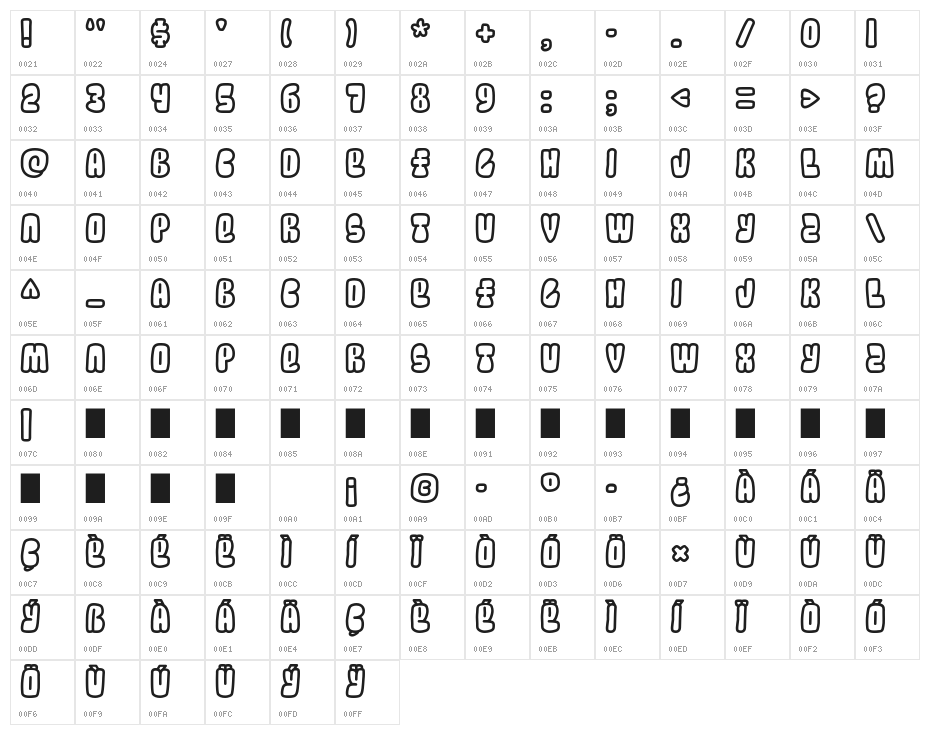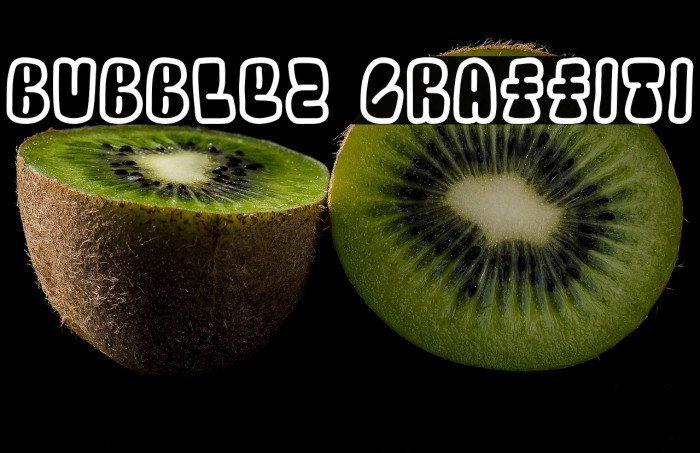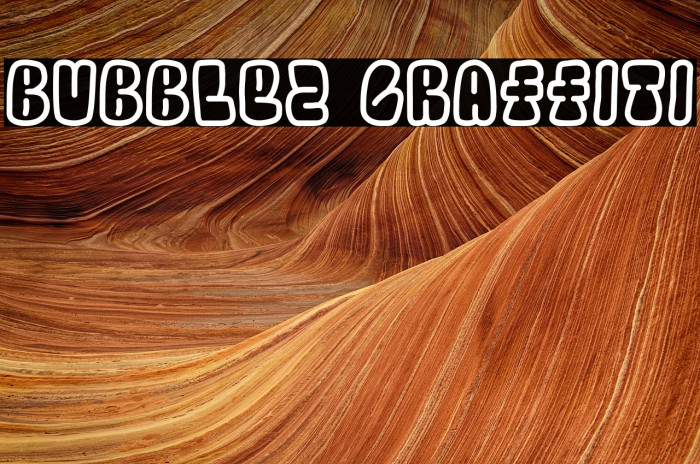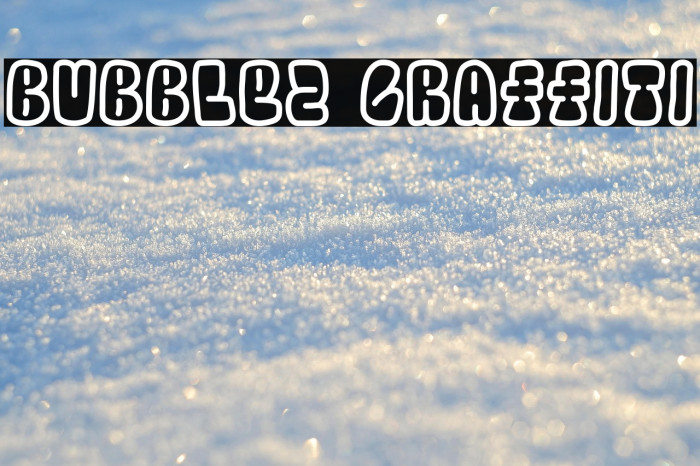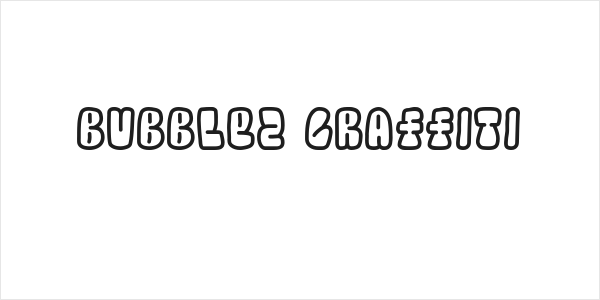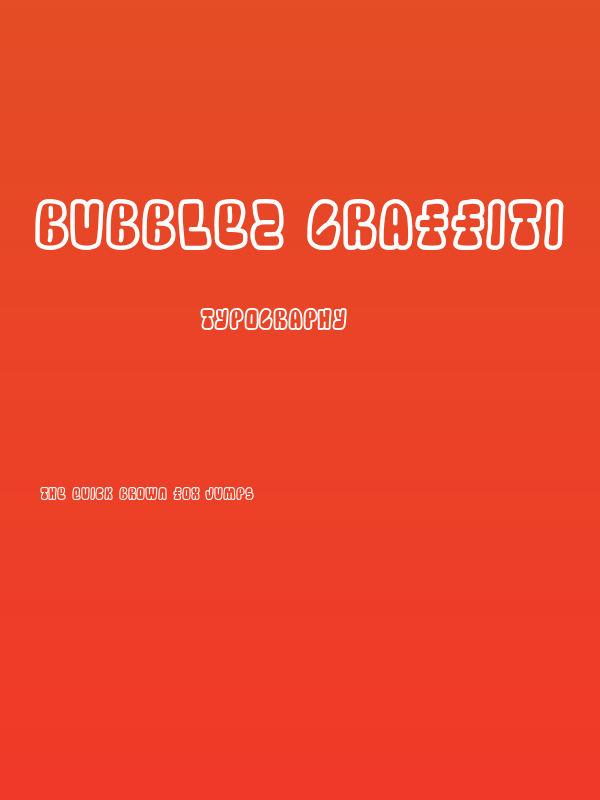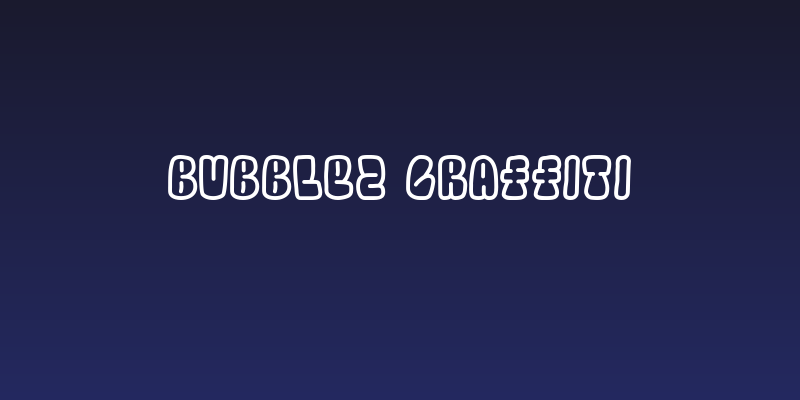
Bubblez Graffiti Font
Bubblez Graffiti Description
This font features a playful and bold graffiti style, characterized by its thick, rounded outlines and bubbly appearance. Each character is designed with a sense of movement and energy, making it ideal for creative and informal projects. The letters have a consistent thickness, contributing to a cohesive and unified look. The font's unique style captures the essence of street art, with a modern twist that makes it suitable for various digital and print applications. Its distinctiveness lies in the exaggerated curves and loops, giving it a lively and dynamic feel. The font's design is both eye-catching and legible, making it perfect for headlines and titles that require a strong visual impact.
| Overall Style | Modern, Decorative |
| Proposed Projects | Ideal for street art-inspired designs, posters, event flyers, children's book covers, and creative branding projects. |